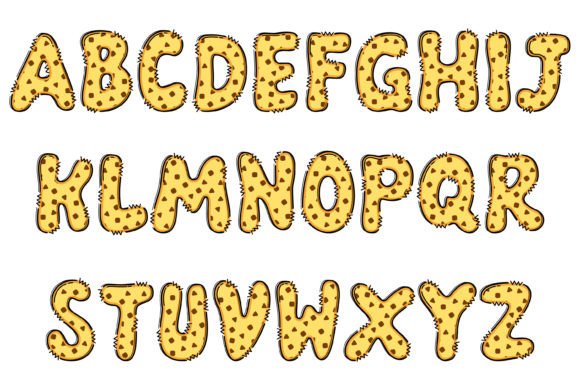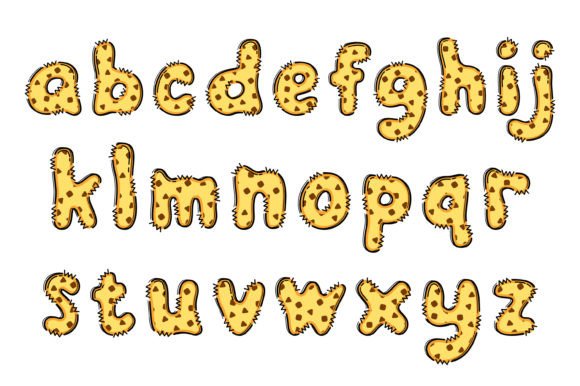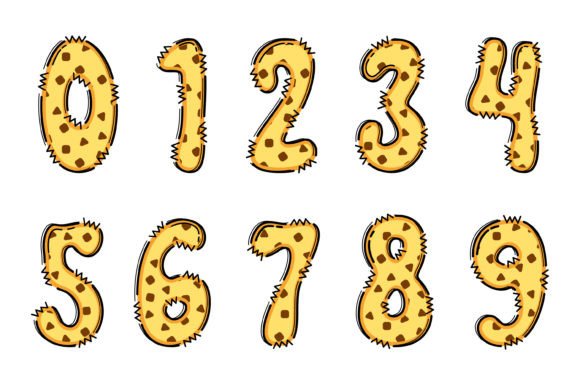
Introduction to Choco Sprinkle Font
Remember that moment when you stumbled upon the perfect design element that elevated your creative project to the next level? For designers, it’s those ‘aha’ moments that make all the difference. Whether you’re crafting a children’s book, creating a birthday invitation, or designing a poster for a local event, having the right design resource can make or break the impact of your work. That’s where the Choco Sprinkle Font comes in – a delightful, whimsical font that adds a playful touch to any design.
As a valuable addition to any designer’s toolkit, the Choco Sprinkle Font offers a range of benefits, from its easy-to-read format to its high-quality, transparent background design. Whether you’re a seasoned pro or just starting out, this font is sure to become a go-to resource for your next creative project.
Key Features of Choco Sprinkle Font
- Choco Sprinkle Font comes in a transparent background, making it perfect for layering and customization.
- Unique, hand-drawn design elements that can add a touch of whimsy to any project.
- Perfect for use in digital and print media, including graphics, logos, and branding materials.
Honest Review: Choco Sprinkle Font
As a designer, I’m always on the lookout for high-quality design resources that can elevate my creative projects. The Choco Sprinkle Font caught my eye, and I decided to give it a try.
- High-quality design that looks great on-screen
- Easy to use and customize
- Perfect for adding a playful touch to designs
- The font is a bit limited in its character set, which may not be suitable for longer texts
- It’s not as versatile as some other fonts, which may limit its use in certain projects
Overall, I think the Choco Sprinkle Font is a great addition to any designer’s toolkit. While it has some limitations, its high-quality design and ease of use make it a great choice for creative projects. I’d definitely recommend it for adding a playful touch to your designs. ✨
To get the most out of the Choco Sprinkle Font, experiment with different font sizes, colors, and styles. You can also combine the font with other design elements to create a unique and visually appealing design.
The Choco Sprinkle Font is ideal for a variety of creative projects, including social media graphics, blog posts, and marketing materials. Its transparent background and high-quality design make it perfect for overlaying on images and creating eye-catching graphics.